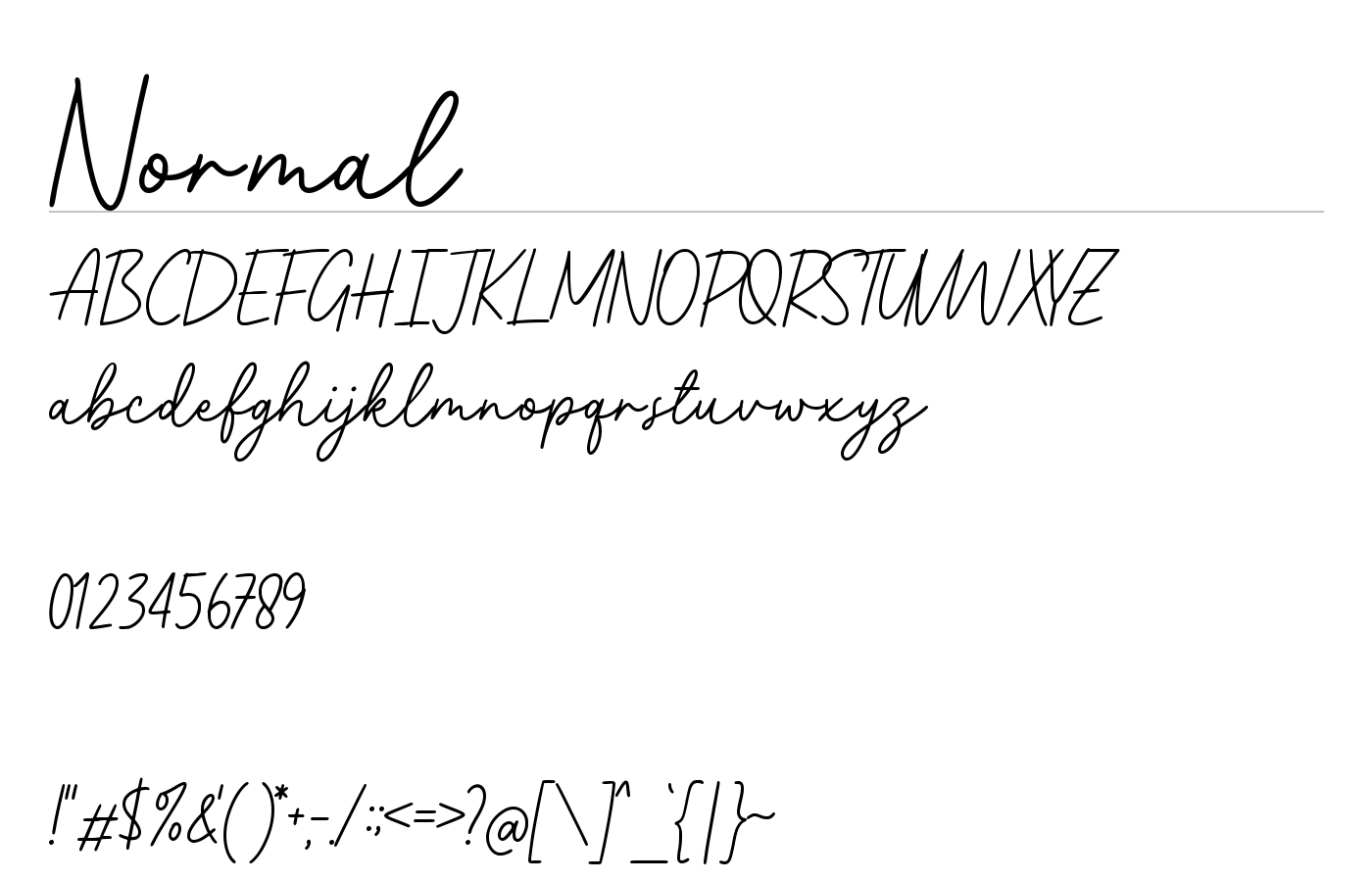
Amrinnatica is a slender, elegant script font with a delicate handwritten feel, featuring smooth, flowing strokes and a slightly casual charm. Its tall, narrow letterforms and consistent line weight give it a modern, approachable style ideal for personal branding, invitations, and creative projects needing a touch of refined yet friendly character. This font works well in headlines, logos, and light editorial use where a stylish, natural hand-drawn look is desired.
Amrinnatica Font
About Amrinnatica Font